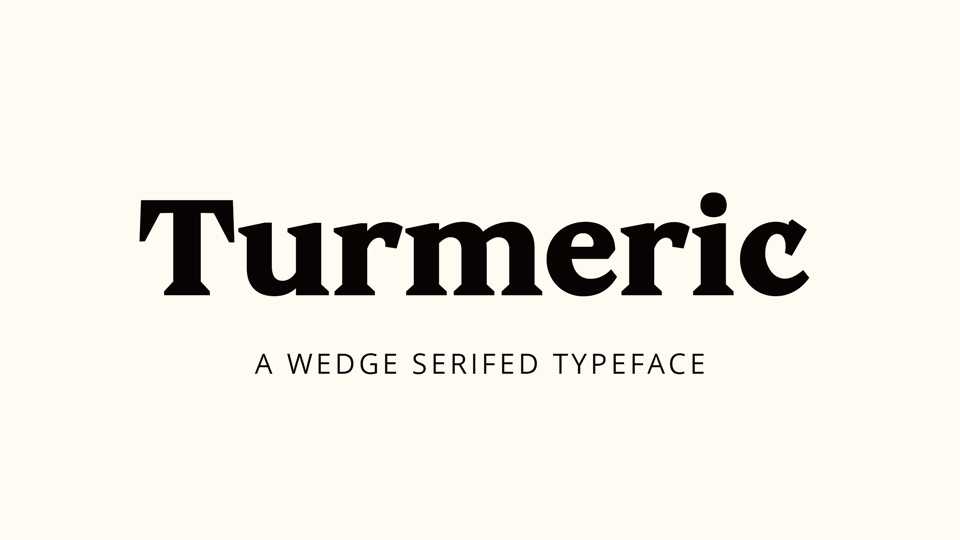
Download Turmeric typeface, a wedge serifed font family in three weights supporting all western, central, and south eastern european latin alphabets containing old-style numberals and discretionary ligatures.
Designer: Tom Holloway